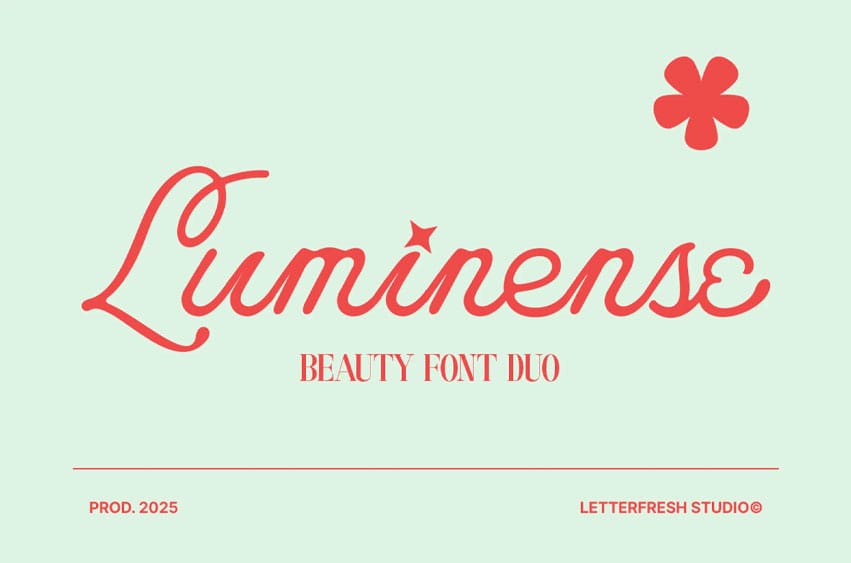
Luminense Font Duo is a handcrafted font duo featuring bold Serif and script typefaces. You can use this font for a variety of purposes, especially for designs that require a retro and vintage feel, such as posters, logos, quotes, and branding. The alternates, ligatures, and lines of the script font will enhance the look of your projects. This font duo is also multilingual!